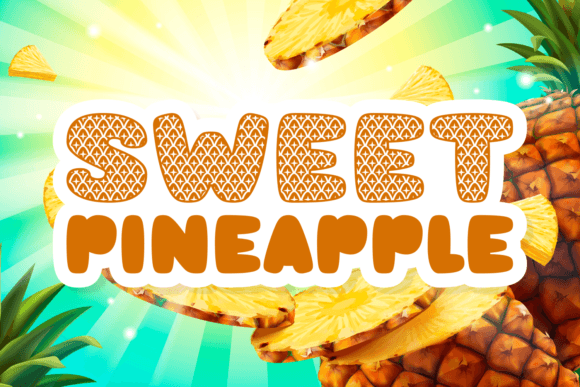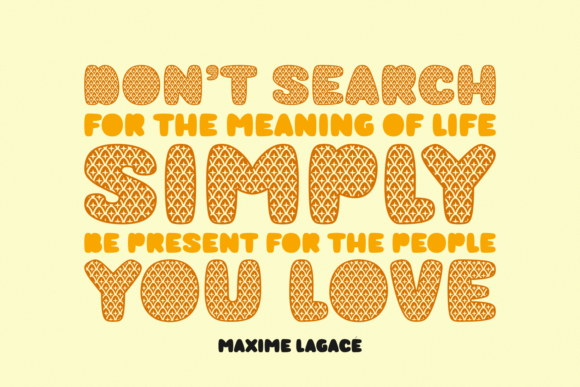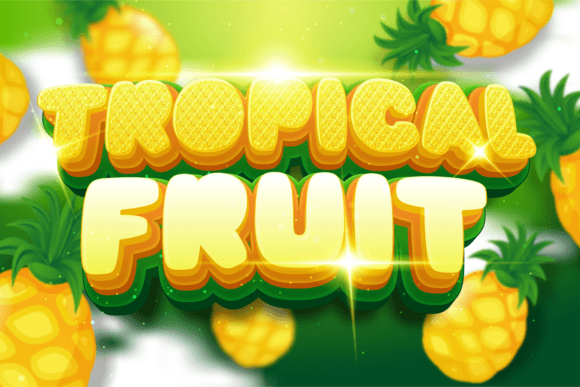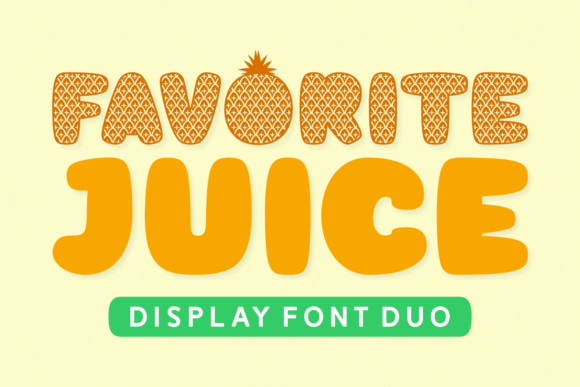
Introduction to Favorite Juice Font
Favorite Juice is a cheerful display font duo with a pineapple theme.
Inspired by this delicious tropical fruit, this font is perfect for creating the visual identity of juice bars, restaurants, candy brands, and so much more This font is PUA encoded, so you can easily access all the glyphs.
Why Choose Favorite Juice Font?